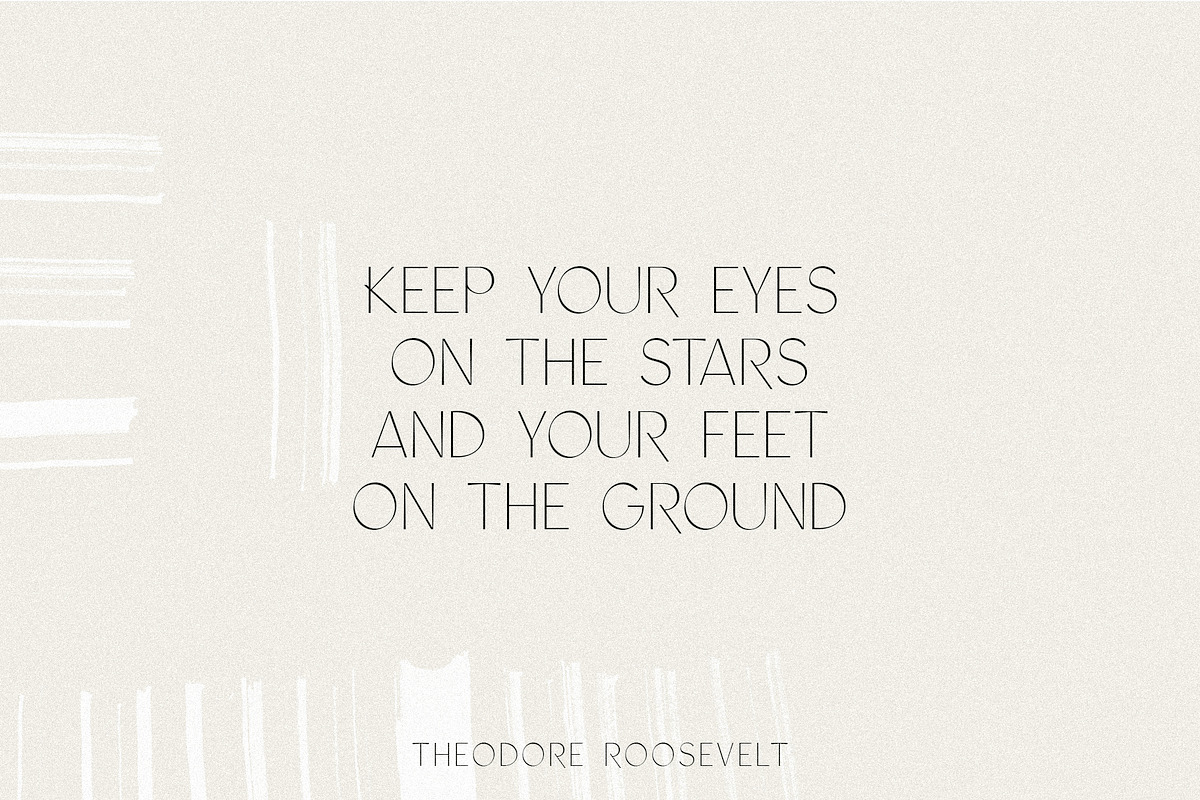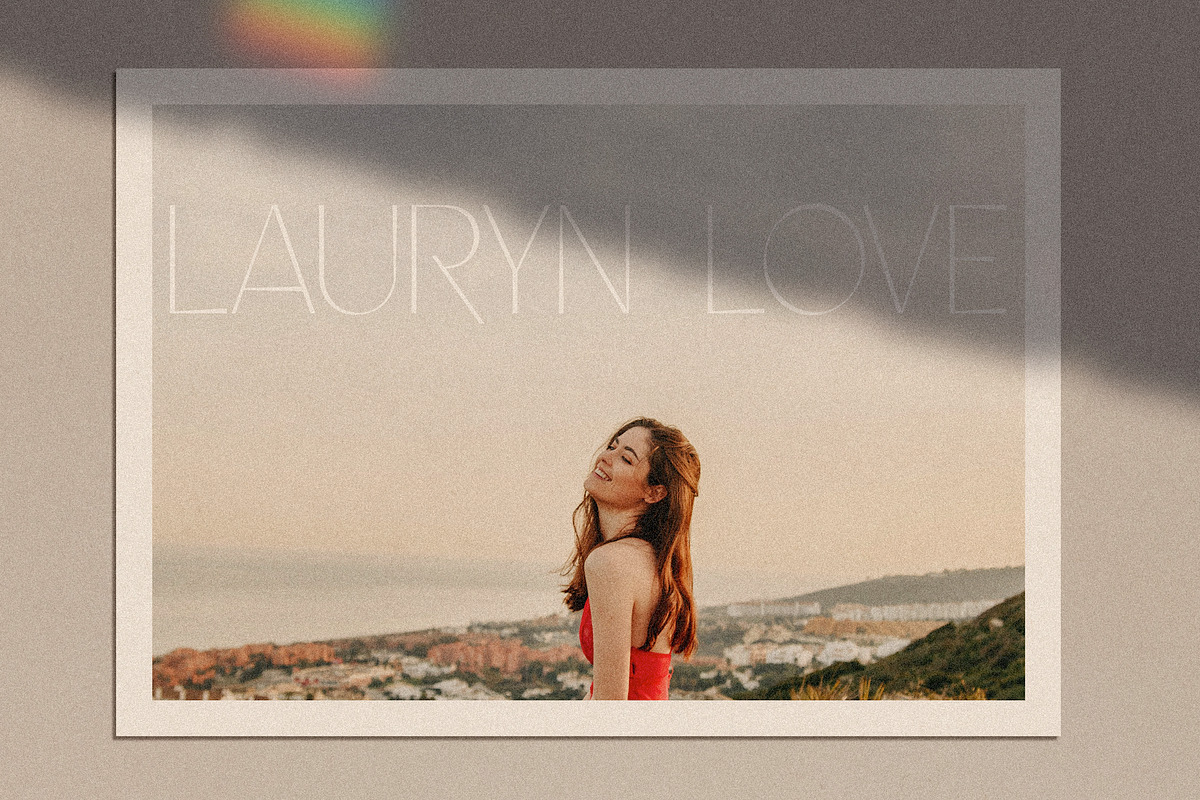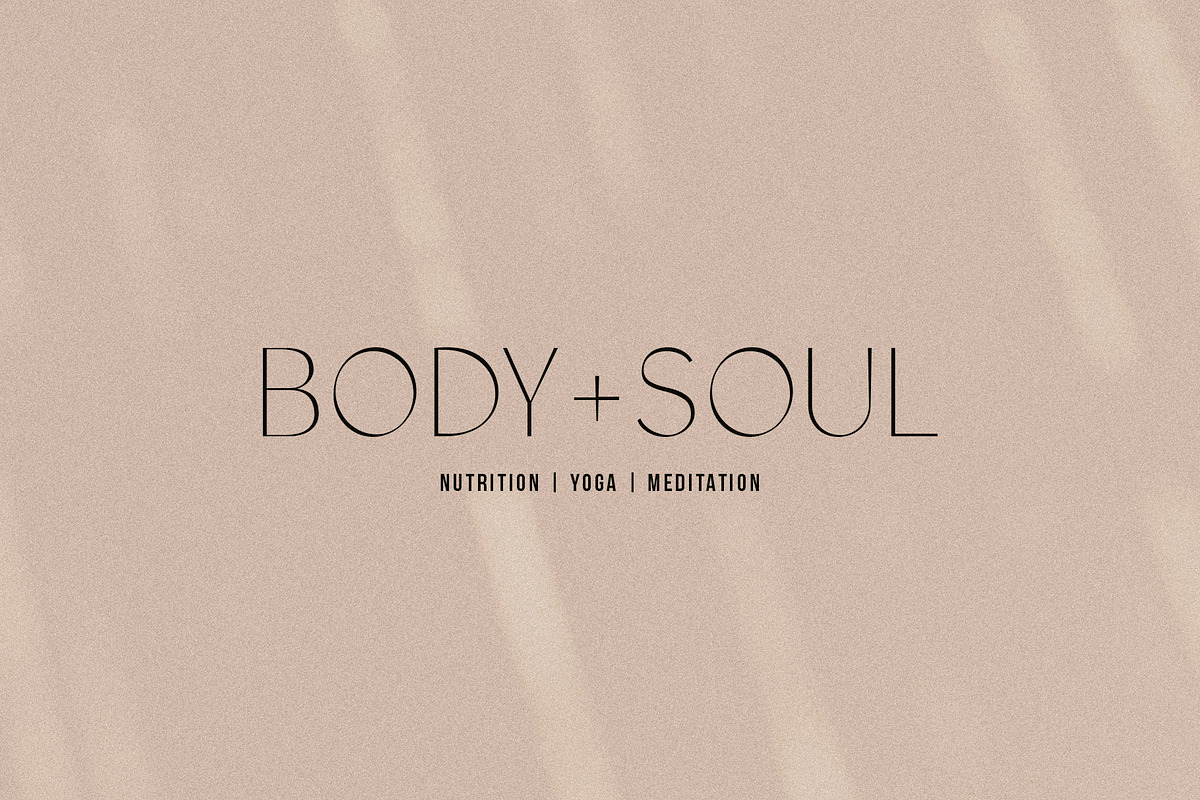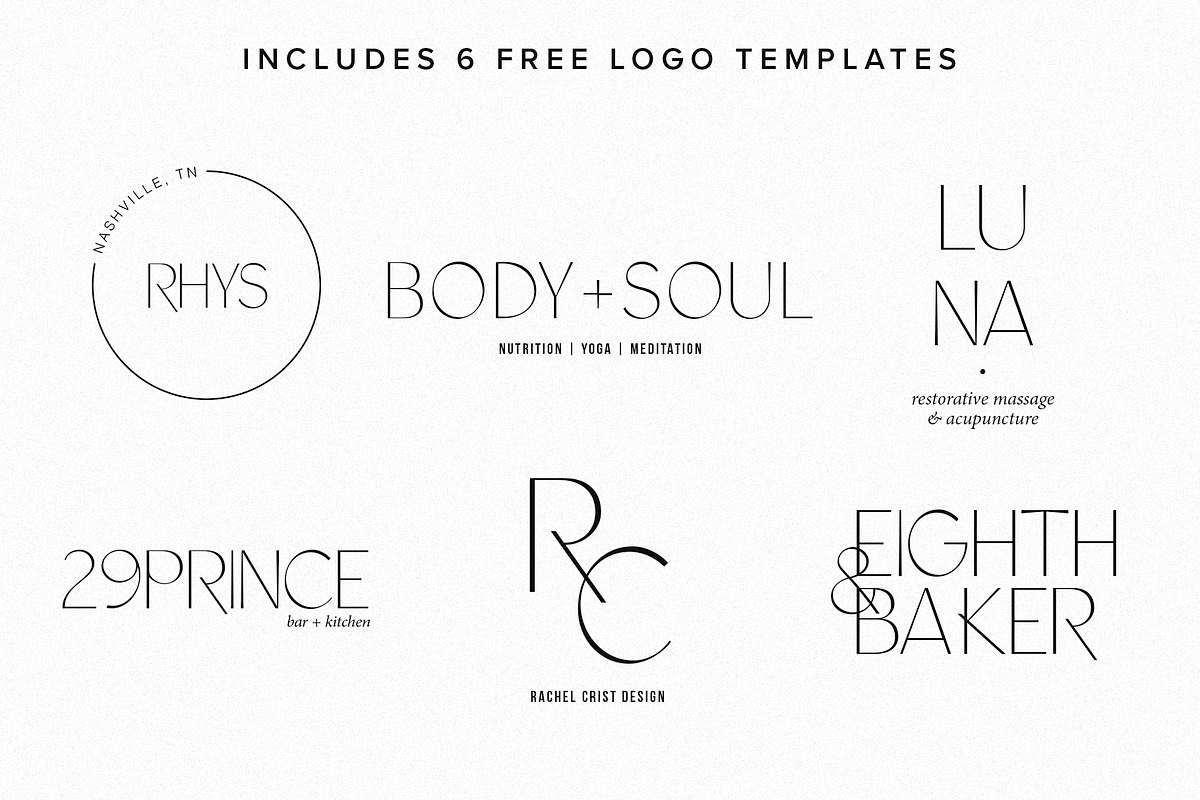
Jasper Font with Extras
Jasper is a beautiful uppercase font that was designed for clean, minimal logos and gorgeous headings. Its clean, tapered lines create visual interest while its simple structure makes it easy to read. Jasper also comes with bonus textures and editable logo templates!
Uppercase letters (including alternate letters for B and R)
Numbers & extended punctuation
Foreign language accents & characters for the international designer
Favorite Font Pairings
Kyoto Wedding Script ( )